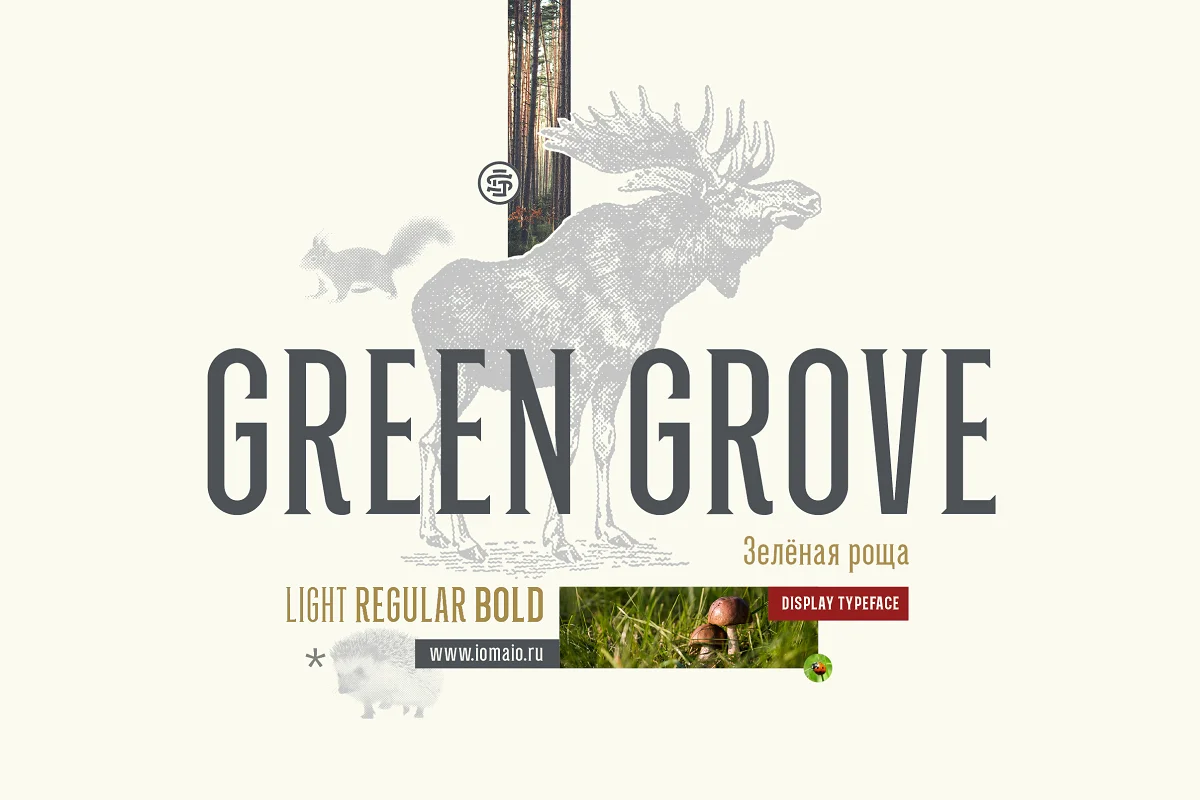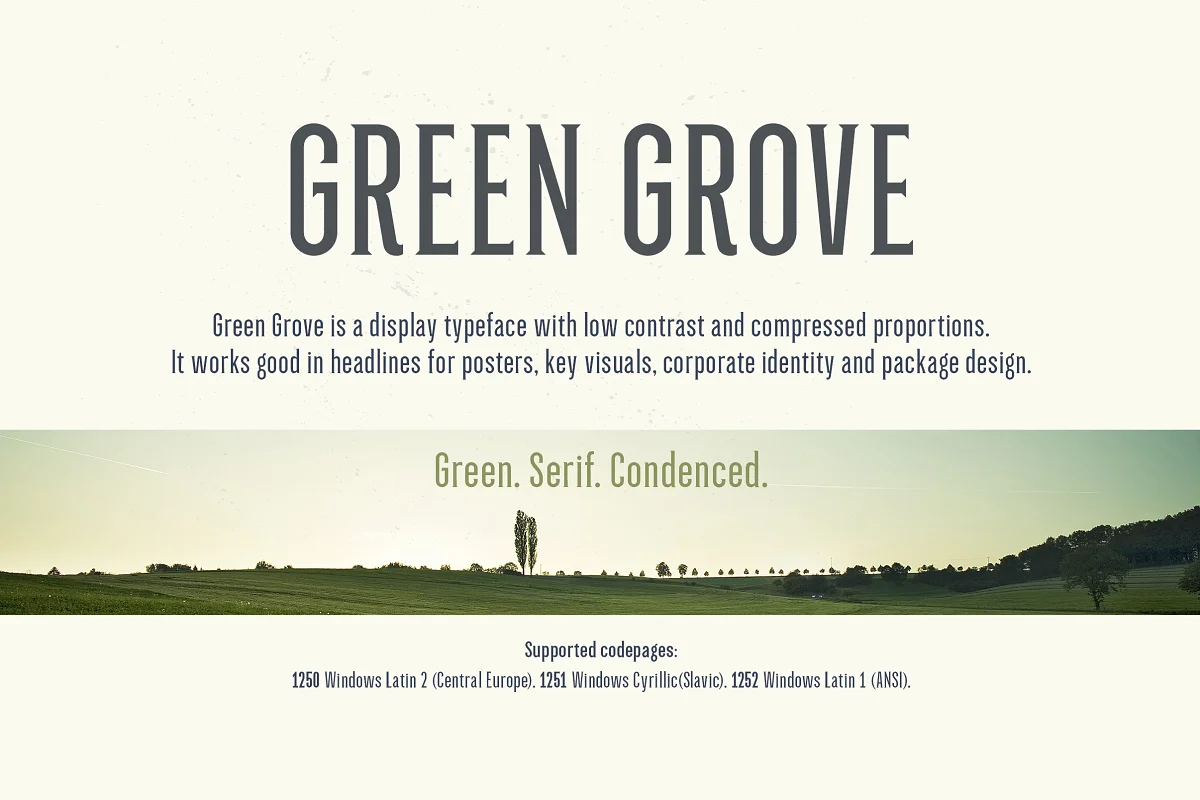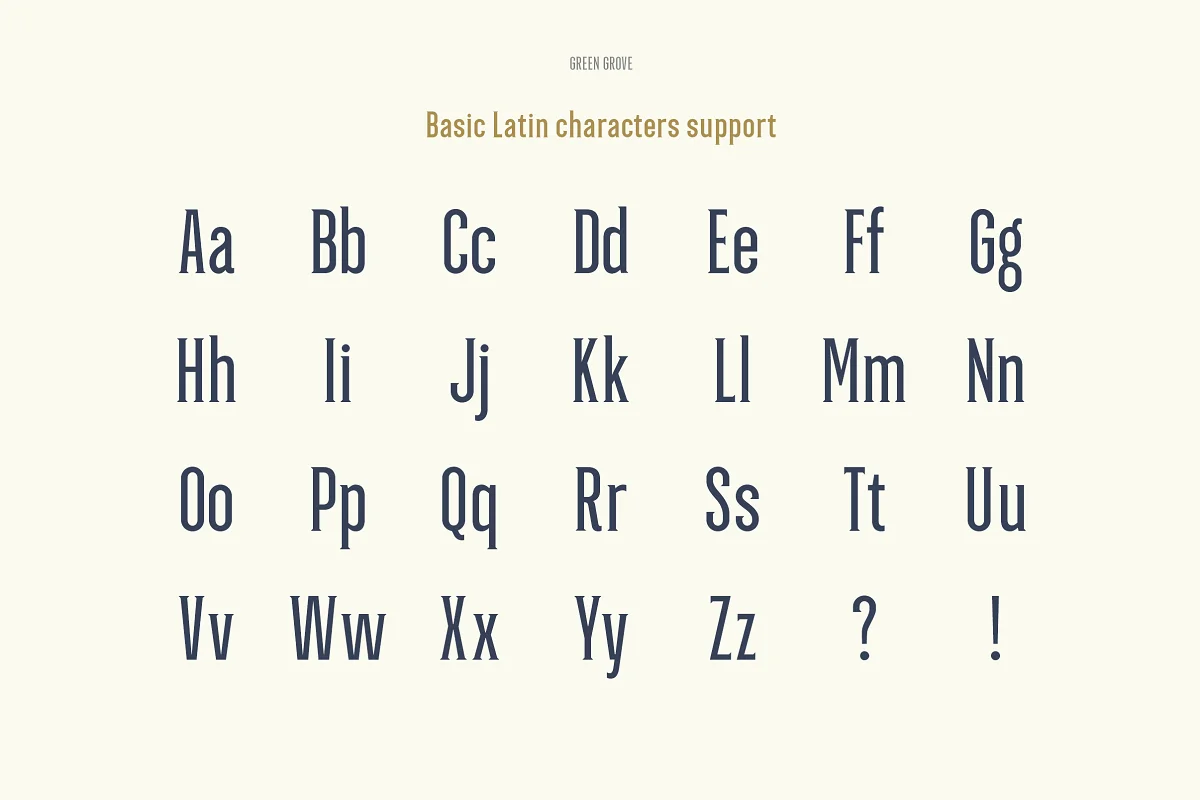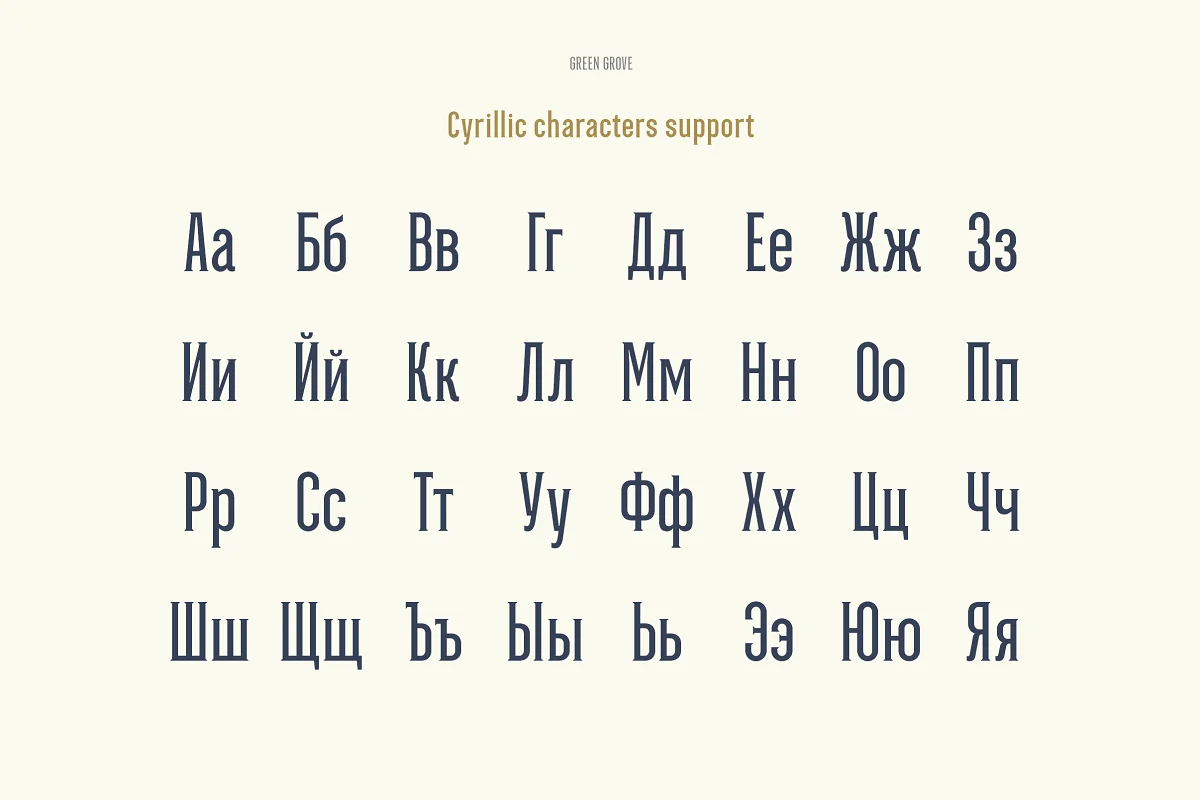
About the Green Grove 3 Font
Green Grove is a display typeface with low contrast and compressed proportions. It works well in headlines for posters, key visuals, corporate identity, and package design.